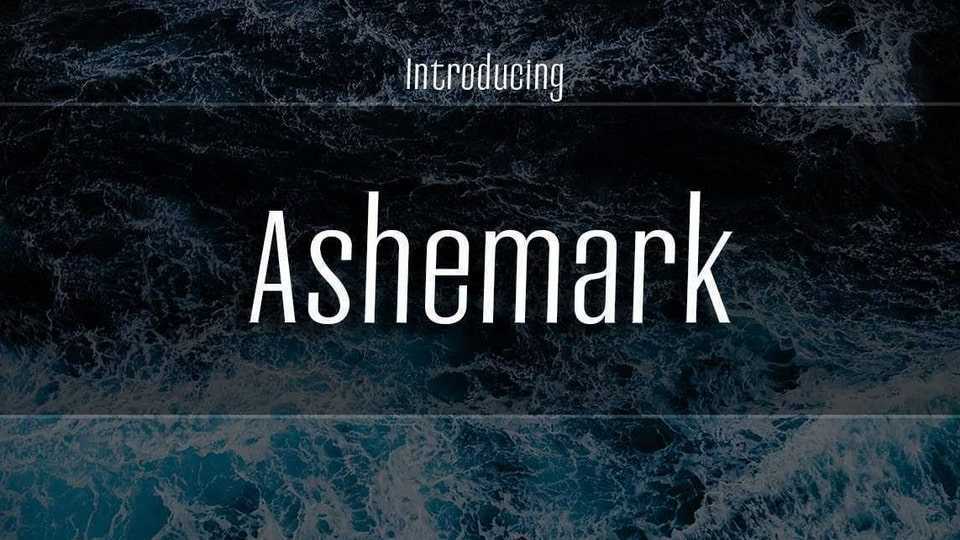
Download Ashemark font, a stylish typeface with a unique, detailed, and handmade look. Ashemark font looks amazing in all caps with wide-set spacing for a classy appearance.
Designer: Eldamar Studio